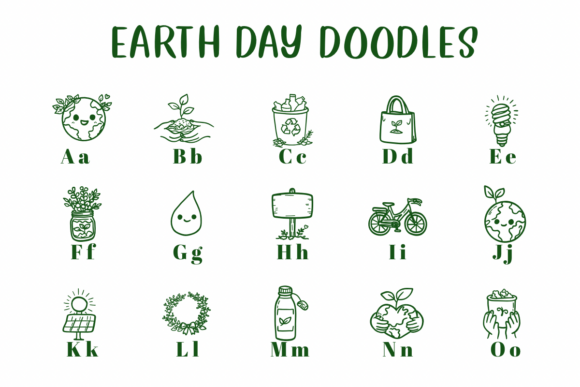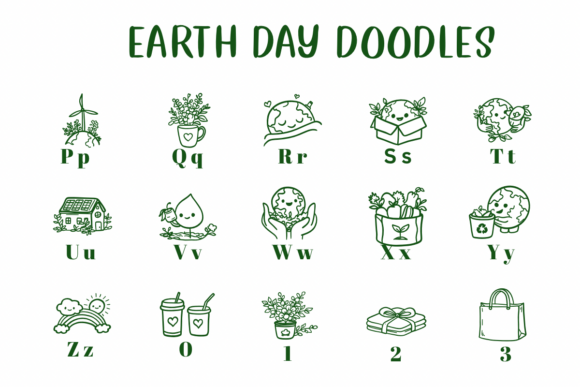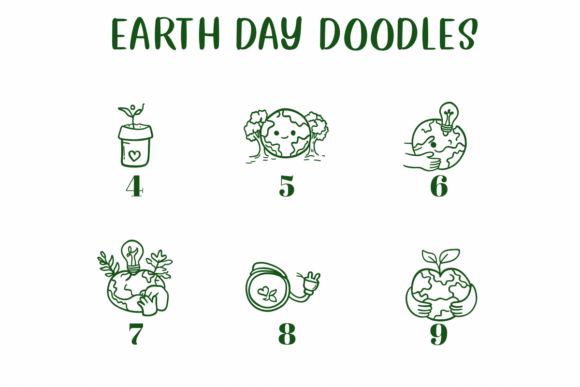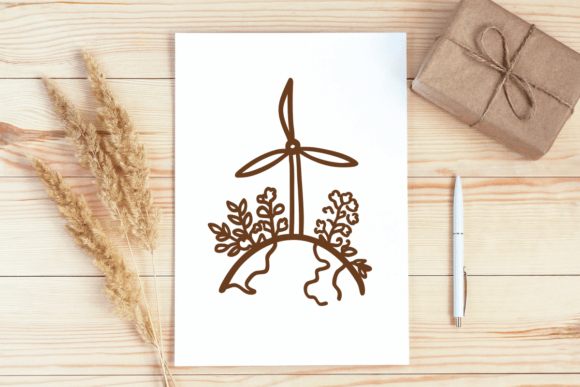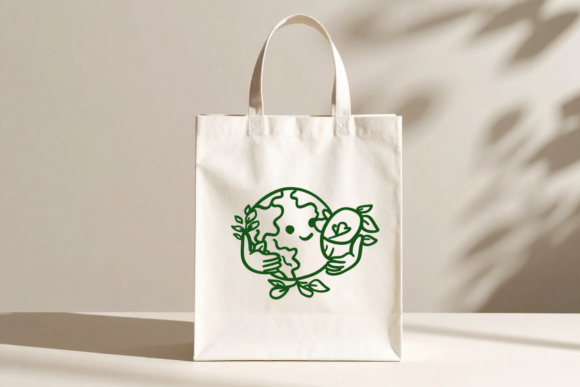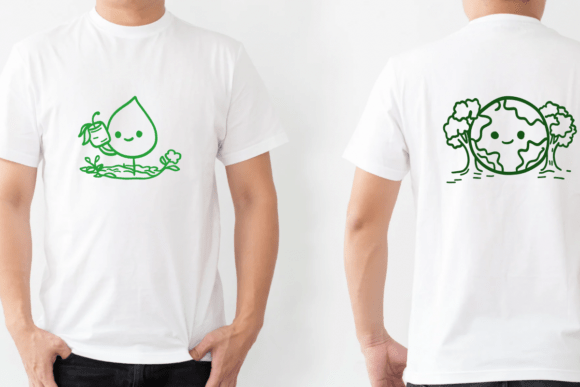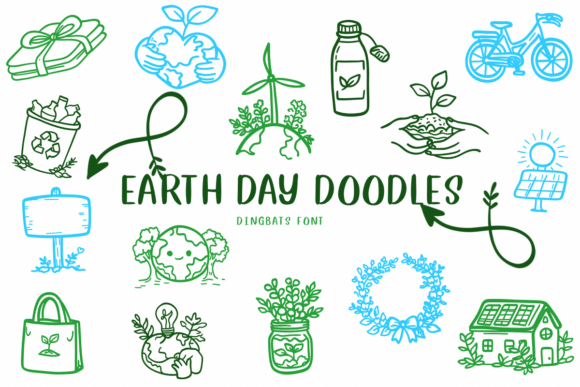
Introducing Earth Day Doodles Font: A Sustainable Creative Solution
As we celebrate Earth Day, designers and crafters are on the lookout for innovative and eco-friendly ways to express their love for the planet. This is where the Earth Day Doodles font comes in – a game-changing, eco-conscious “dingbats font” that brings the beauty of nature and sustainability to your fingertips. In this article, we’ll explore the features, benefits, and uses of this incredible font, perfect for environmental campaigns, green branding, and educational materials.
What is Earth Day Doodles Font?
The Earth Day Doodles font is a curated collection of hand-drawn illustrations, featuring a wide range of eco-friendly icons and symbols. From solar panels and wind turbines to recycling bins, bicycles, and smiling globes, this font is a treasure trove of creative possibilities. With its unique, hand-sketched style, the Earth Day Doodles font offers a heartfelt and authentic way to communicate your passion for the environment.
Key Features of Earth Day Doodles Font
- Hand-drawn illustrations: Each icon and symbol is carefully crafted to bring a touch of nature and sustainability to your designs.
- Eco-friendly icons: The font features a wide range of environmentally friendly icons, including renewable energy sources, eco-friendly transportation, and recycling symbols.
- Easy to use: Integrating these professional illustrations is as simple as typing a letter, making it an incredibly efficient way to decorate digital newsletters or print posters.
- Customizable: Use the Earth Day Doodles font to create custom eco-stickers, organic product tags, or social media icons.
The Earth Day Doodles font offers numerous benefits for designers and crafters looking to create eco-friendly and sustainable designs. Some of the key advantages include:
- Save time: With the Earth Day Doodles font, you can create professional-looking designs in no time, without having to spend hours searching for and editing individual illustrations.
- Stand out: The unique, hand-sketched style of the font ensures that your designs will stand out from the crowd and grab attention.
- Show your passion: Use the Earth Day Doodles font to express your love for the environment and showcase your commitment to sustainability.
Ideas for Using Earth Day Doodles Font
The Earth Day Doodles font is incredibly versatile, and its uses are endless. Here are some ideas to get you started:
- Environmental campaigns: Use the font to create eye-catching posters, social media graphics, and email newsletters for environmental campaigns and events.
- Green branding: Incorporate the Earth Day Doodles font into your brand identity to showcase your commitment to sustainability.
- Eco-friendly product labels: Create custom eco-stickers and organic product tags to label your eco-friendly products.
- Educational materials: Use the font to create engaging and informative educational materials for sustainable living, such as worksheets, presentations, and infographics.
The Earth Day Doodles font is an innovative and eco-friendly creative solution for designers and crafters looking to express their love for the environment. With its unique, hand-sketched style and wide range of eco-friendly icons, this font is perfect for environmental campaigns, green branding, and educational materials. Whether you’re a non-profit organizer or a planet-loving designer, the Earth Day Doodles font offers a heartfelt and authentic way to communicate your passion for sustainability.